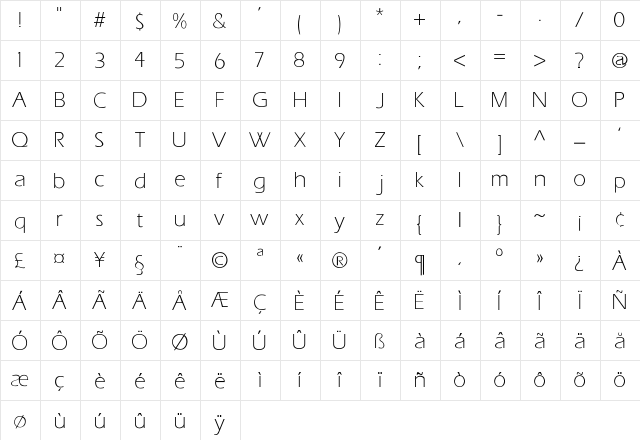
Semolina-Light Regular
Design Context for Semolina-Light Typeface
Semolina-Light offers clean, dependable letterforms without strong stylistic allegiance, making it a practical choice for designers who need flexibility. Its slender proportions lend an understated elegance to any composition.